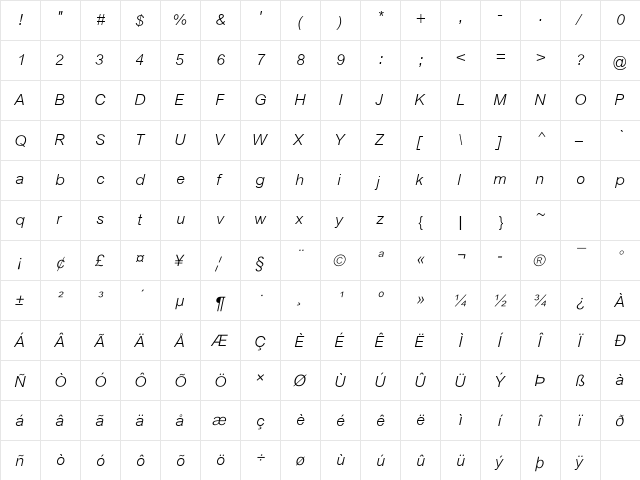
Cordia New Italic
Design Context for Cordia New Typeface
Cordia New takes a measured approach to typography — its balanced proportions and neutral character make it a reliable workhorse for both digital and print work. The slanted form adds forward momentum and visual energy.